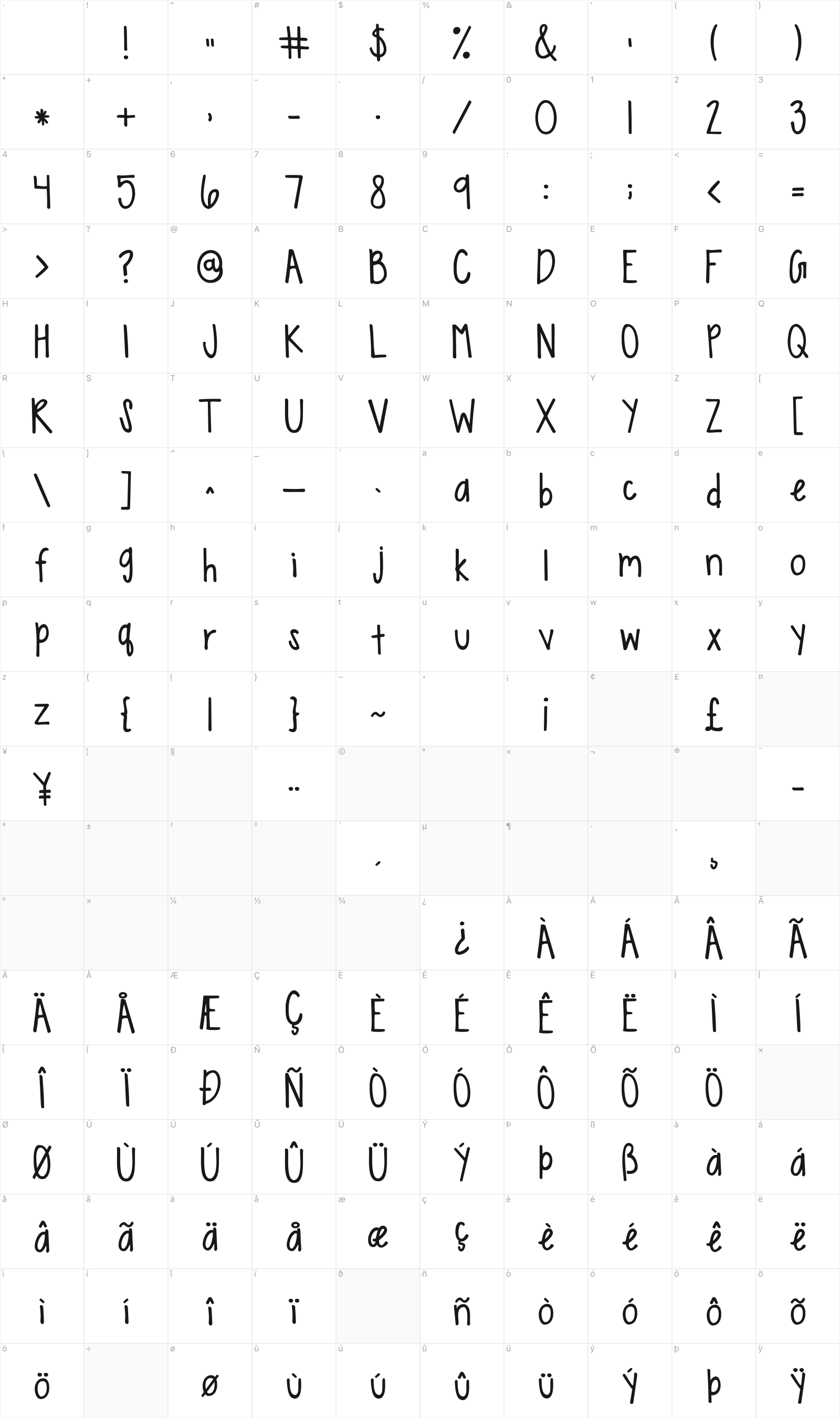
KG Sweet N Sassy
KG Sweet N Sassy is a thin, casual handwritten face from Kimberly Geswein with a playful, slightly quirky rhythm to its letterforms. The lightweight strokes and informal spacing give it a distinctly feminine personality, like notes passed between friends or doodles in the margins of a notebook. It works naturally for invitations, greeting cards, personal blogs, and branding that wants to feel approachable and unguarded.